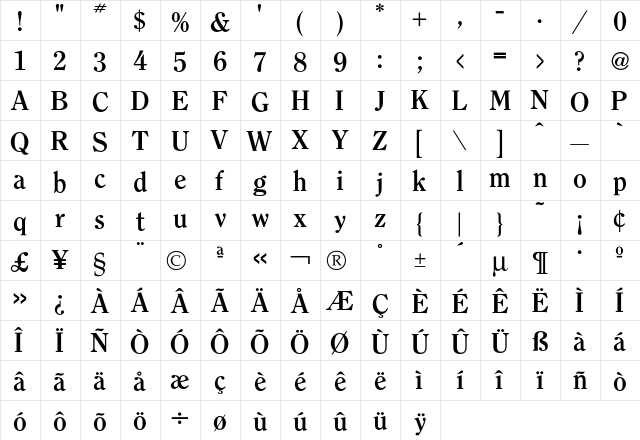
Clearface Bold Font Preview
Clearface Bold
Clearface Bold Font Details
Design Context for Clearface Typeface
Clearface takes a measured approach to typography — its balanced proportions and neutral character make it a reliable workhorse for both digital and print work. Its bold stroke weight gives it real presence on the page.
Pro Tip: Pair Clearface with a font of contrasting weight or personality to build a more expressive typographic hierarchy.